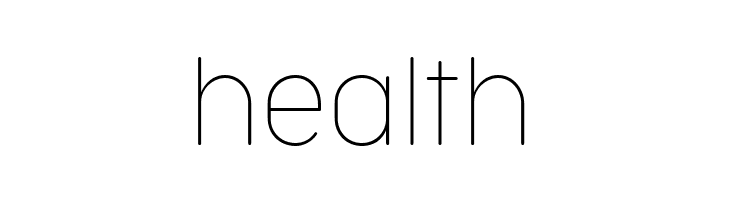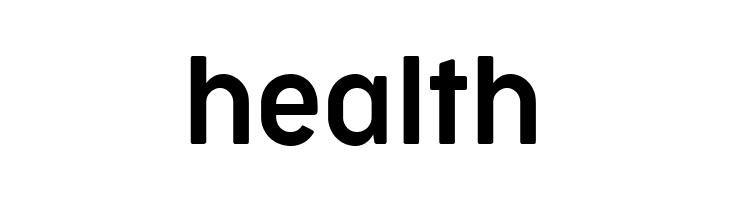
A modern, thin, and narrow font with clean lines and a minimalist aesthetic.
A modern, condensed font with bold, uniform strokes and high legibility.
A modern, ultra-light, condensed font with a minimalist design.
A bold, compressed typeface with a modern and cohesive design.
A sleek, modern, and ultra-light condensed font ideal for contemporary designs.
A modern, narrow sans-serif font with a clean and sleek design.
A sleek, ultra-light, and modern narrow font with clean lines.
A modern, condensed sans-serif font with a light weight and geometric design.
A modern, narrow sans-serif font with a clean and professional look.
A sleek, minimalist font with thin lines and a modern aesthetic.